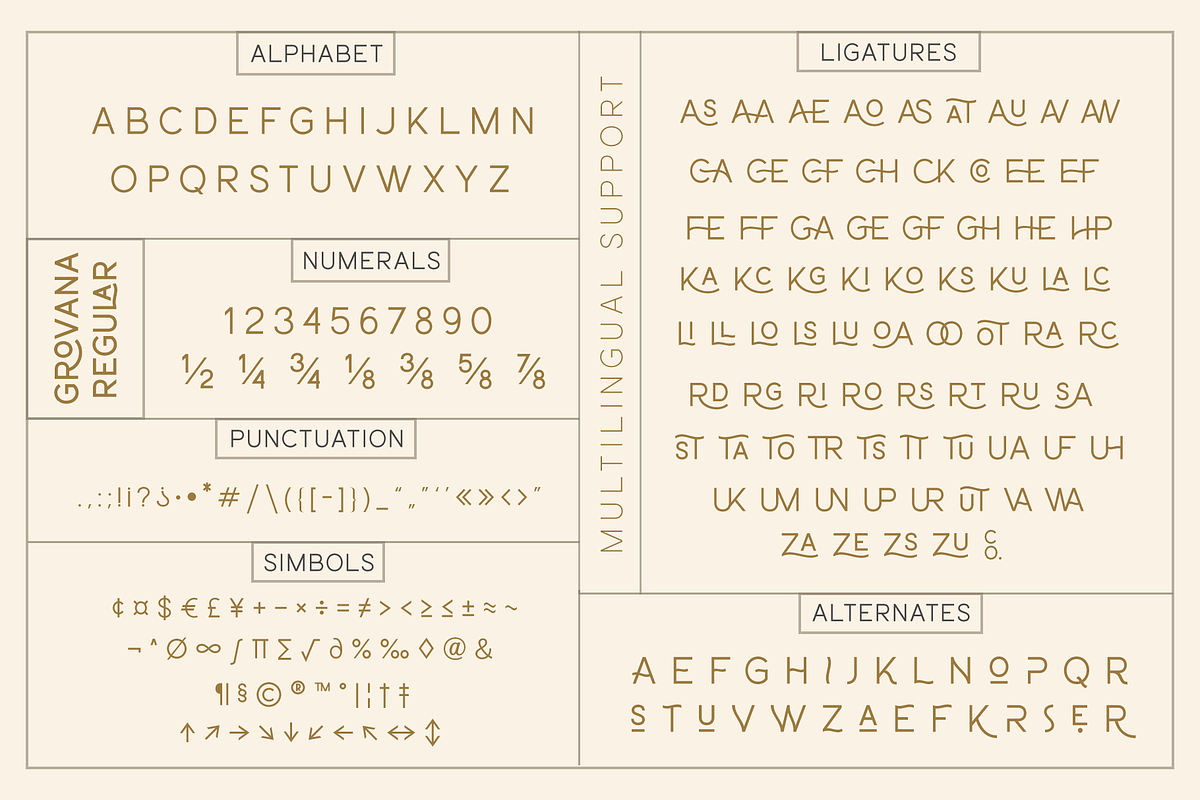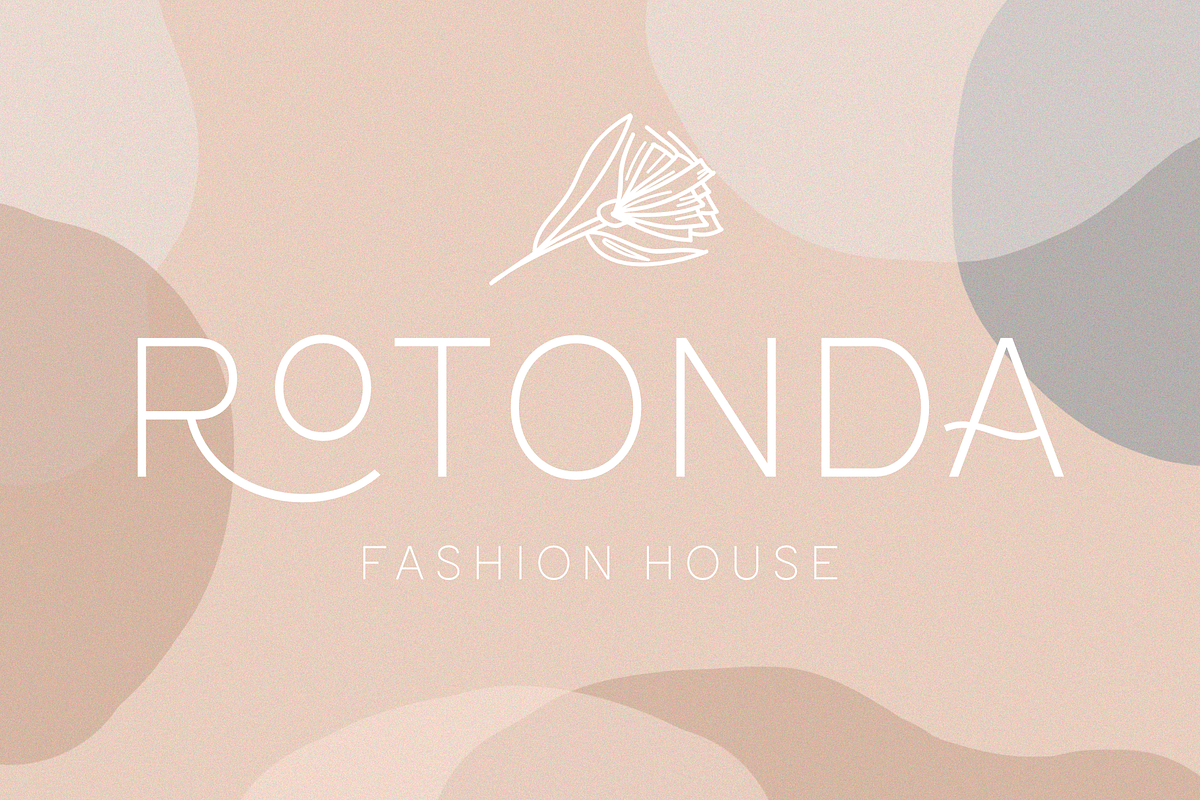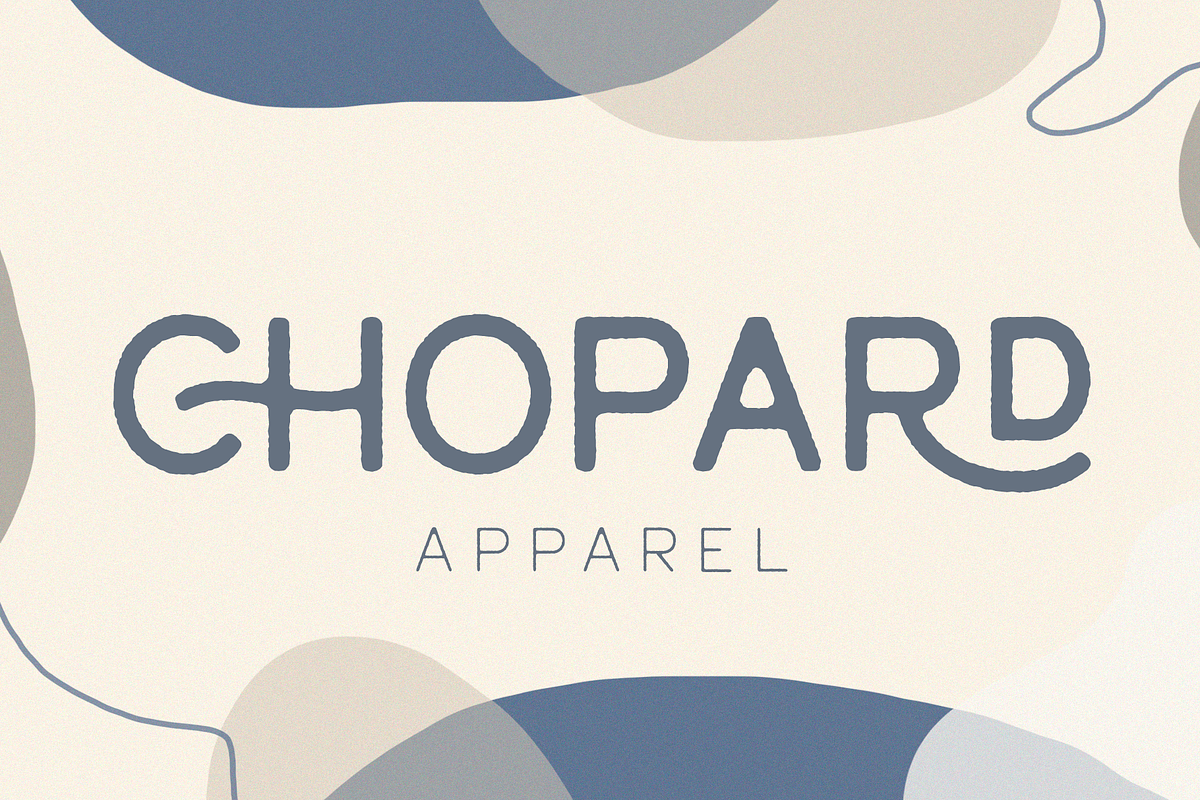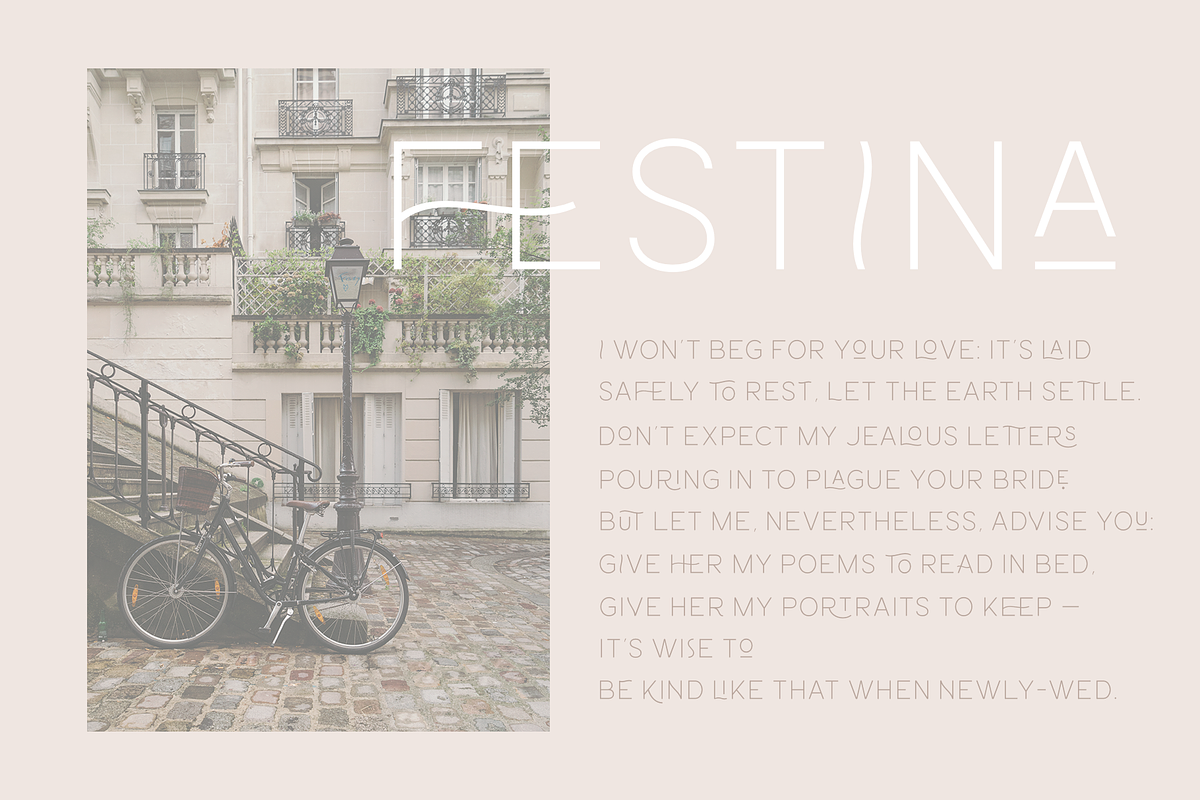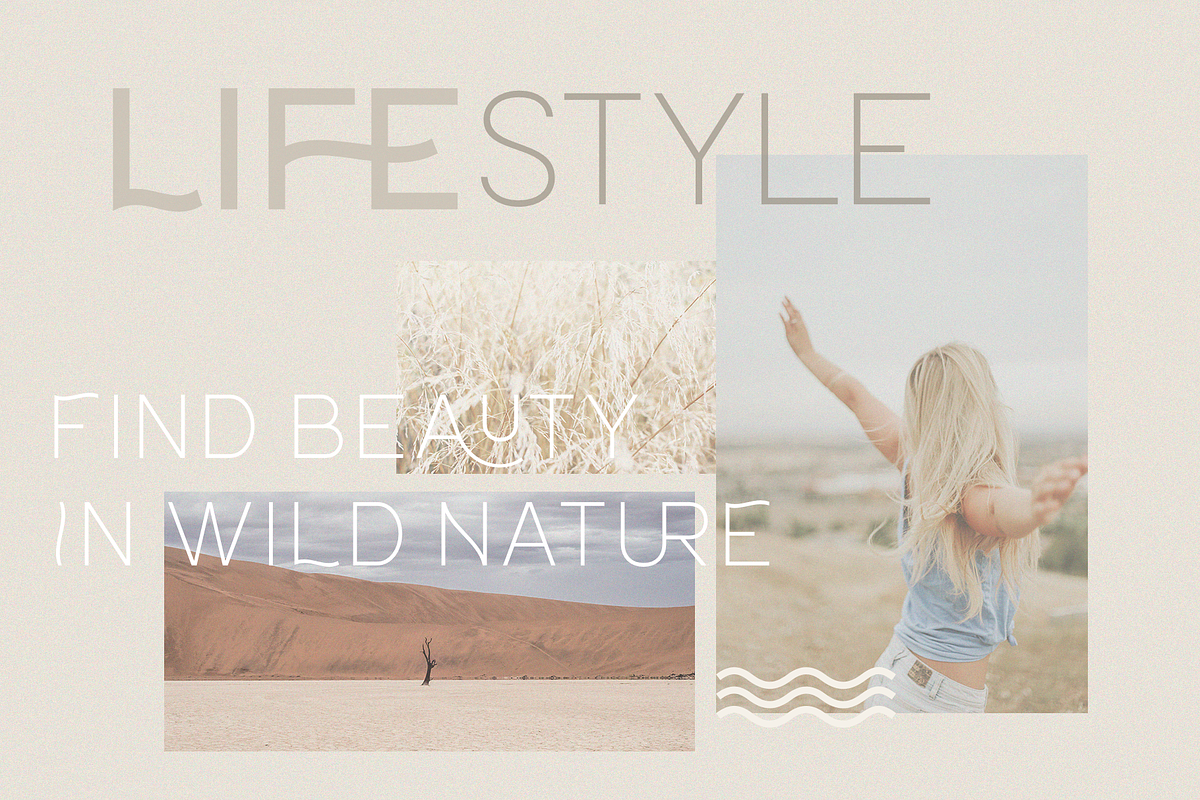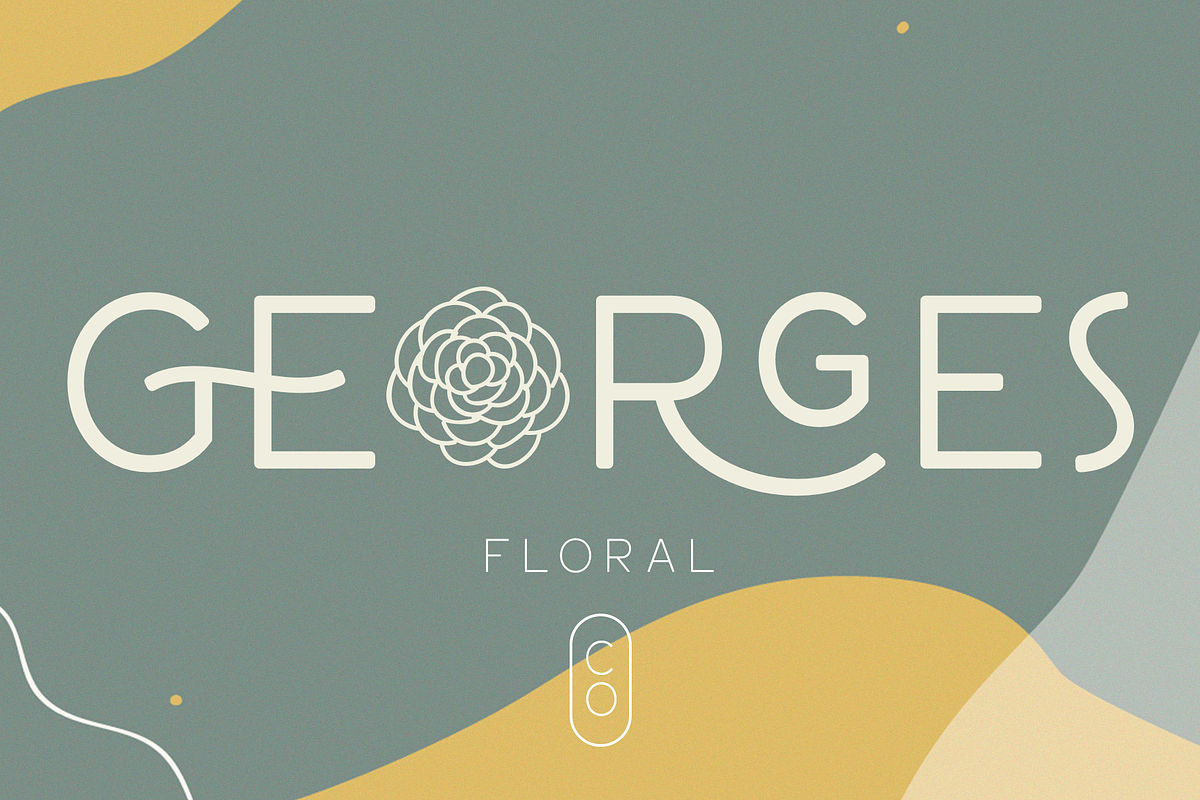
Grovana
Grovana is a modern family of sans serif fonts, which includes 12 fonts: 3 styles - regular, round and rough, each of them has 4 weight - light, regular, medium and bold. I also prepared many ligatures and alternatives that give you more opportunities to create your project. with them you can be unique and experiment with your design.
This font is easy to read and universal, perfect for creating logos, book and magazine covers, advertising, branding, wedding invitations, posters, postcard, labels, business cards, packaging and much more.
Following international symbols support: ÀÁÂÃÄÅĄÇĆÈÉÊËĘÌÍÎÏÐÑŃŁÒÓÔÕÖØÙÚÛÜŚŠŸÝŹŻŽßàáâãäåçèéêëìíîïðñòóôõöøùúûüýÿąćęłńśšźżž
Full alphabet A-Z
Numbers, fractions
Punctuation and mathematical symbols